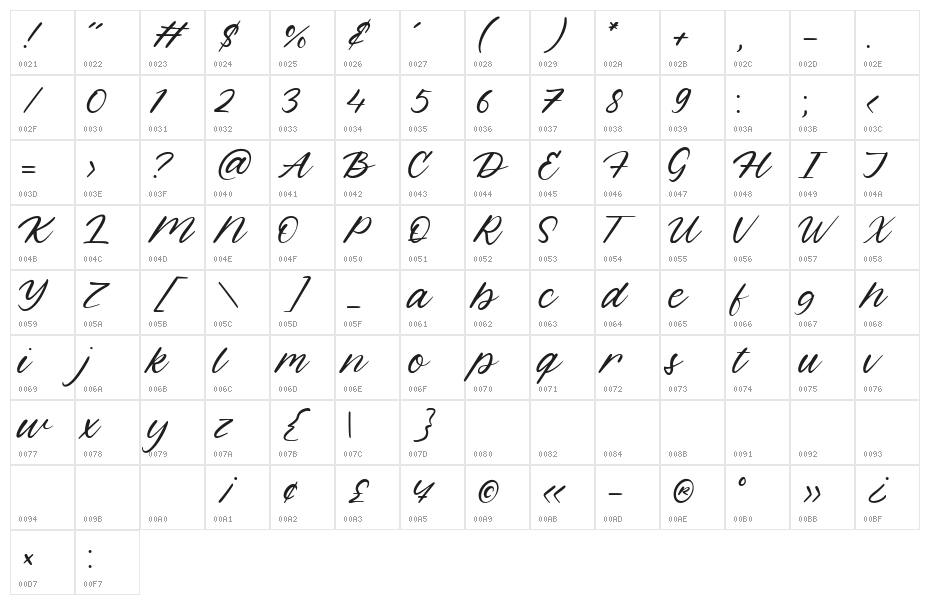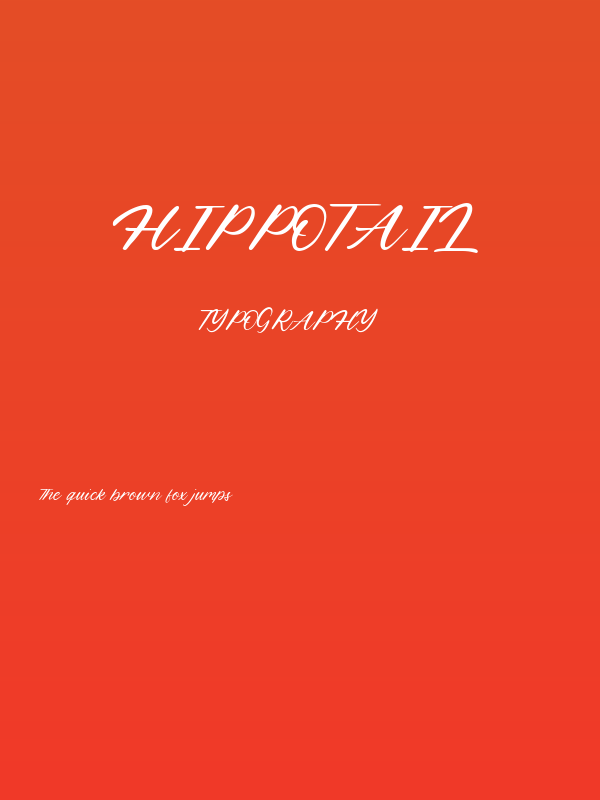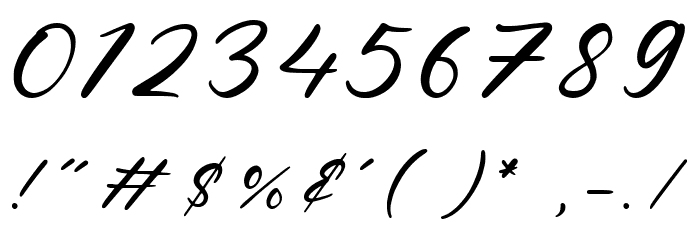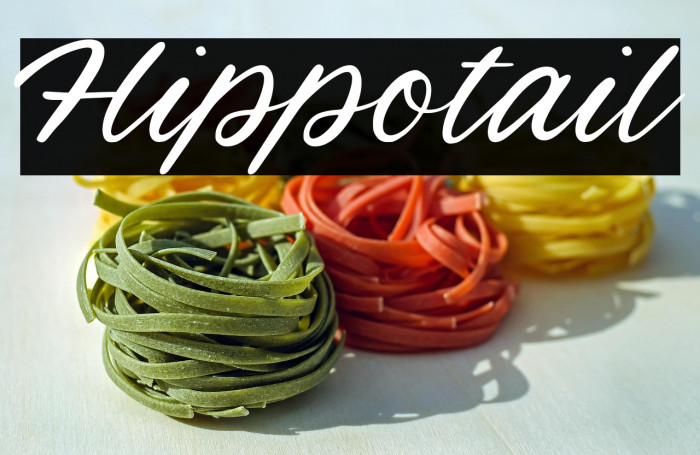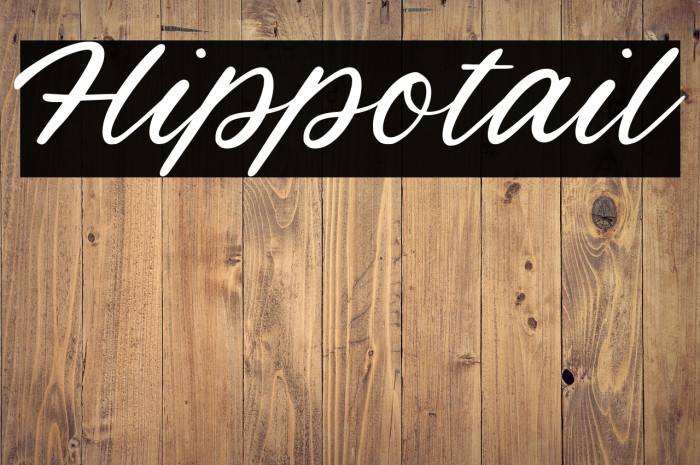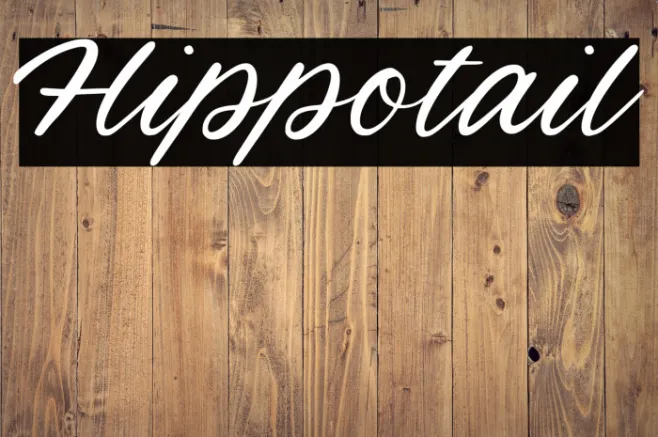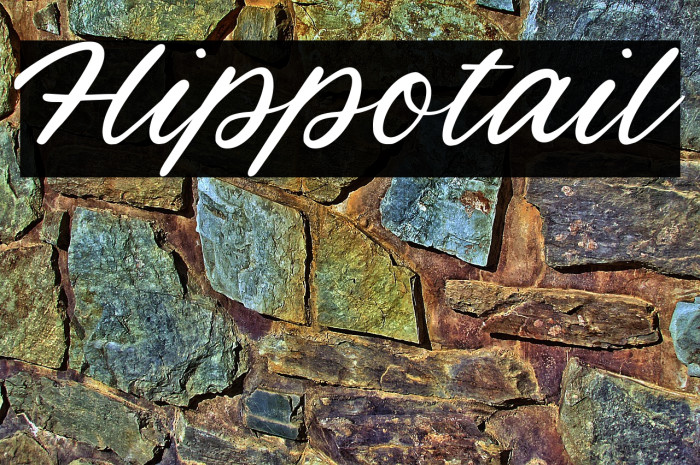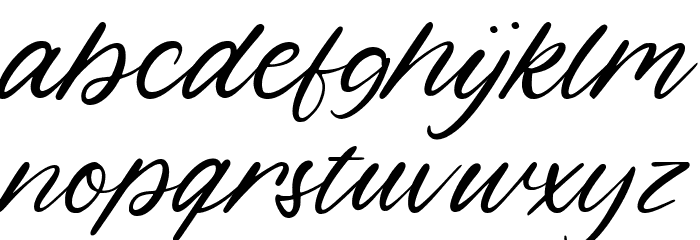
Hippotail Font
Hippotail Description
This font exudes a dynamic and flowing script style, characterized by its elegant, cursive letterforms. The uppercase letters are slightly more elaborate, with sweeping lines and a sense of movement, while the lowercase letters maintain a consistent, smooth flow. The numerals are designed to complement the overall script style, featuring similar curves and fluidity. Special characters are integrated seamlessly, maintaining the font's cohesive aesthetic. The overall appearance is both sophisticated and approachable, making it suitable for a variety of design applications.